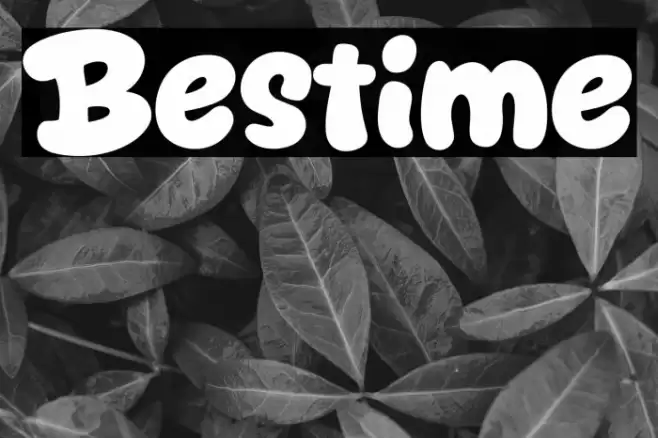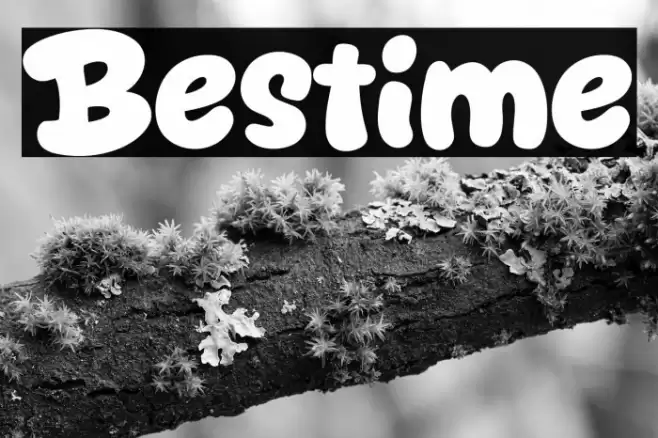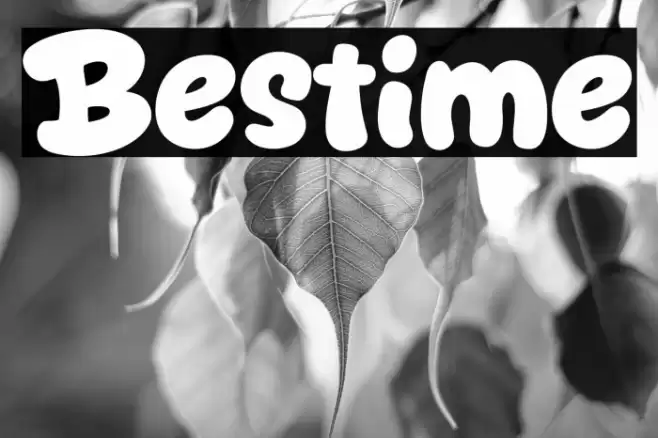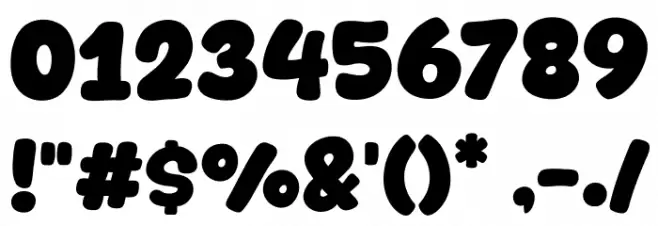
Bestime Font
Bestime Description
This playful and bold font features rounded, bubbly characters that exude a sense of fun and approachability. The letters are thick and have a consistent stroke width, giving them a strong presence on the page. The overall design is informal and friendly, making it ideal for creative and casual applications. The font includes both uppercase and lowercase letters, numbers, and a variety of special characters, all maintaining the same whimsical style. Its unique appearance makes it stand out, perfect for projects that require a touch of personality and flair.
A bold, playful font with rounded, bubbly characters from Uncategorized fonts.
- Font: Bestime
- Proposed Projects: Ideal for children's books, playful branding, party invitations, and creative posters.
- Overall Style: Playful